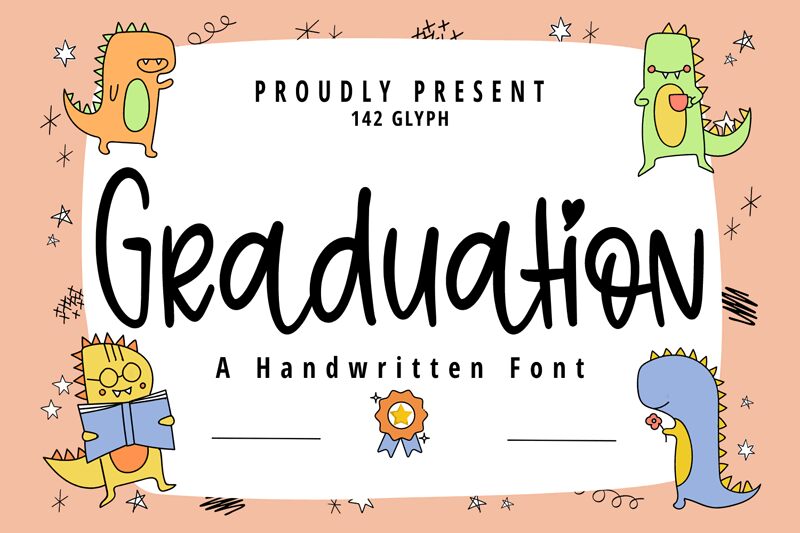
Graduation
Introducing Graduation, a delightful handwritten font designed by Al Ghul. With its semi-light weight, this font exudes elegance and sophistication. Perfect for projects that require a touch of personalization, Graduation adds a charming and artistic flair to wedding invitations, greeting cards, and scrapbooks. It also shines in branding materials such as logos and packaging designs, giving your products a unique and memorable appeal. Whether you're creating a blog header or designing social media graphics, Graduation effortlessly captures attention with its graceful strokes and whimsical charm. Elevate your projects with the enchanting beauty of Graduation font!